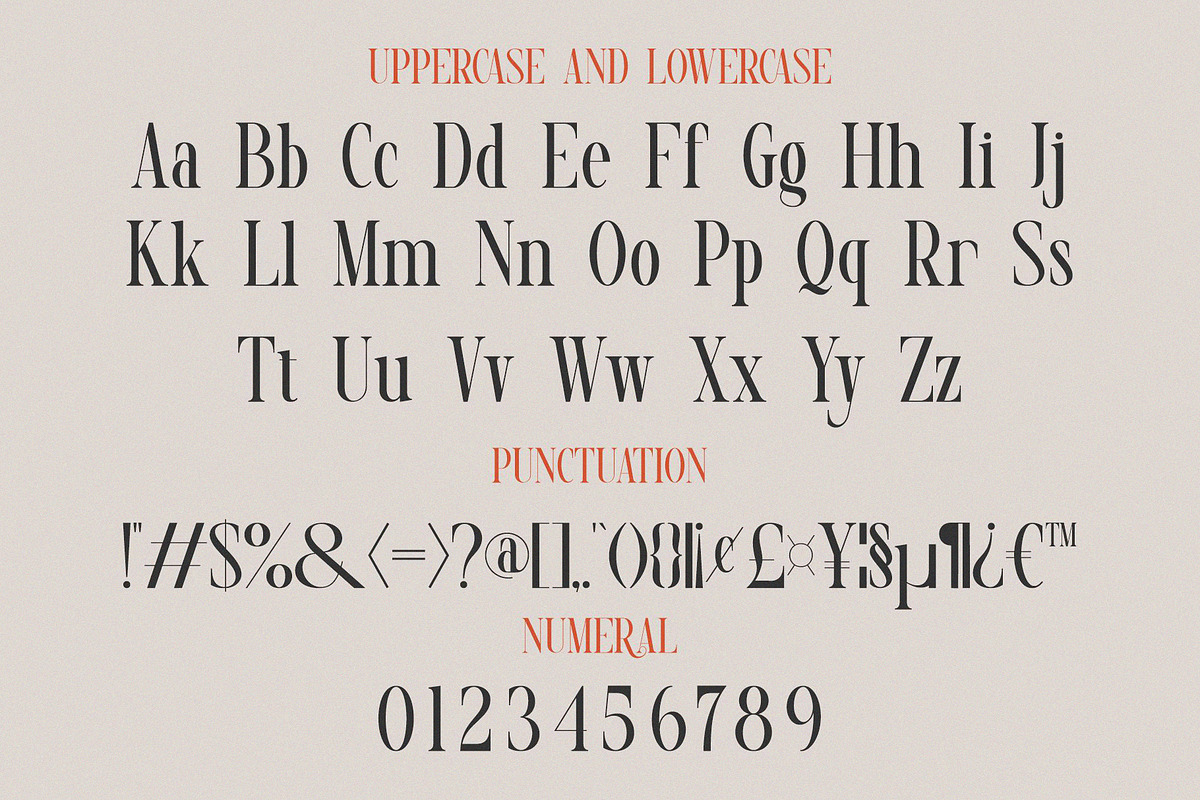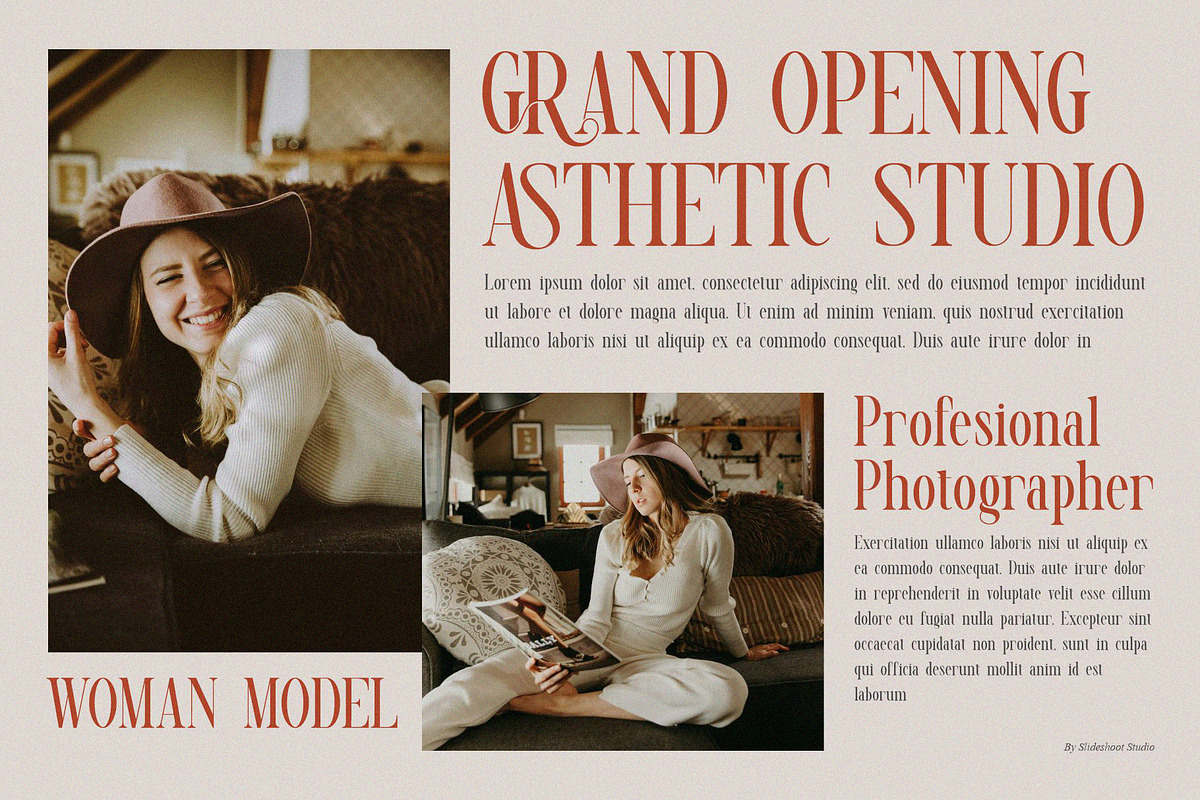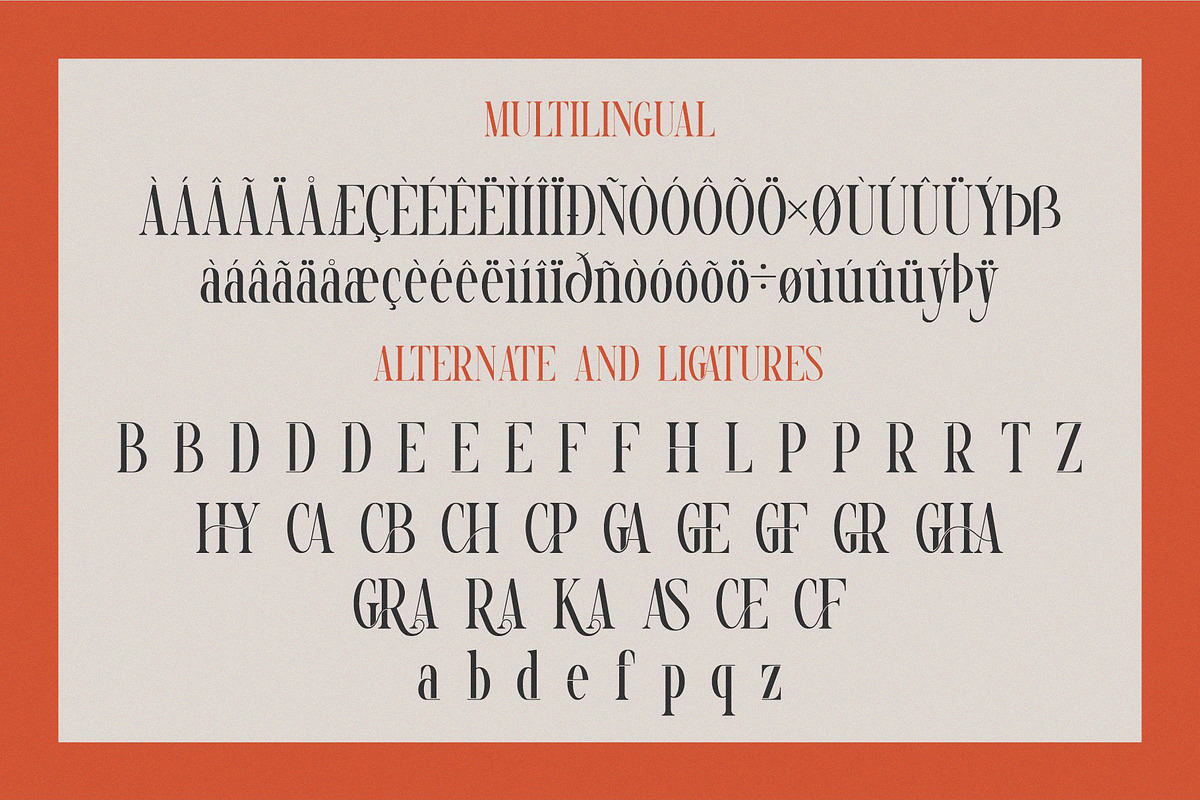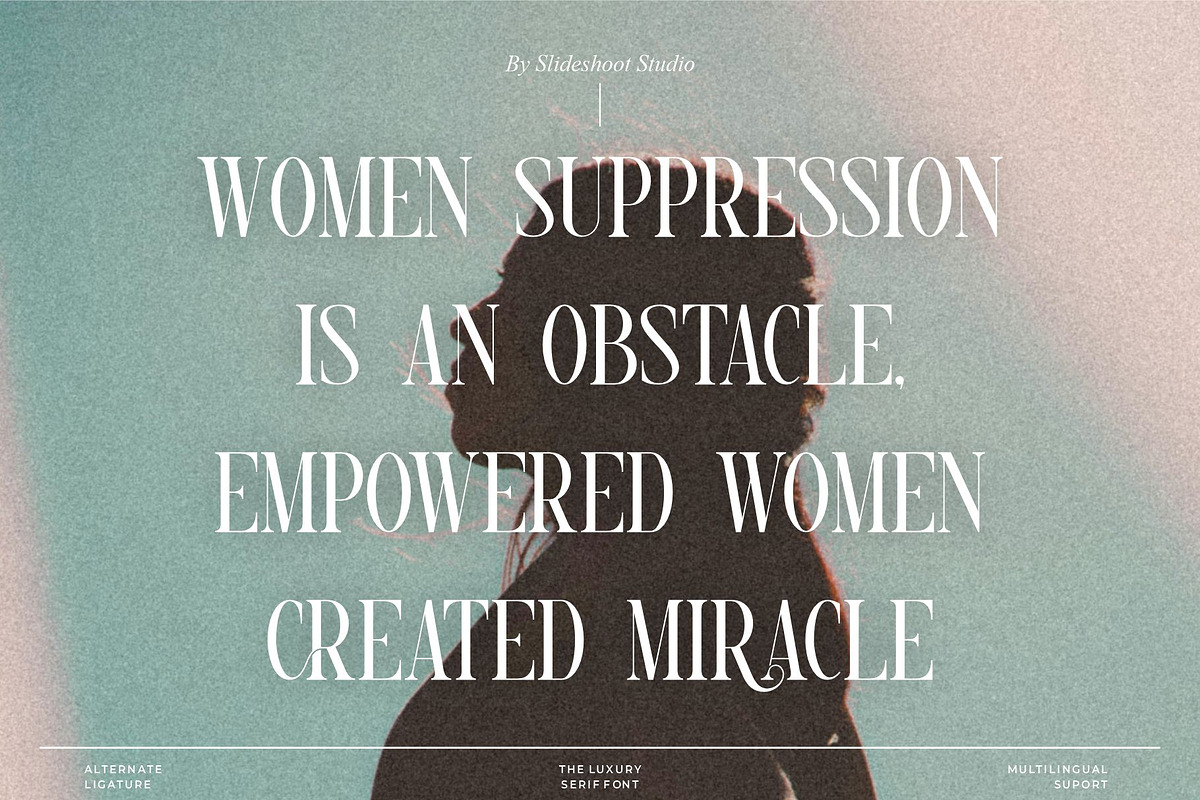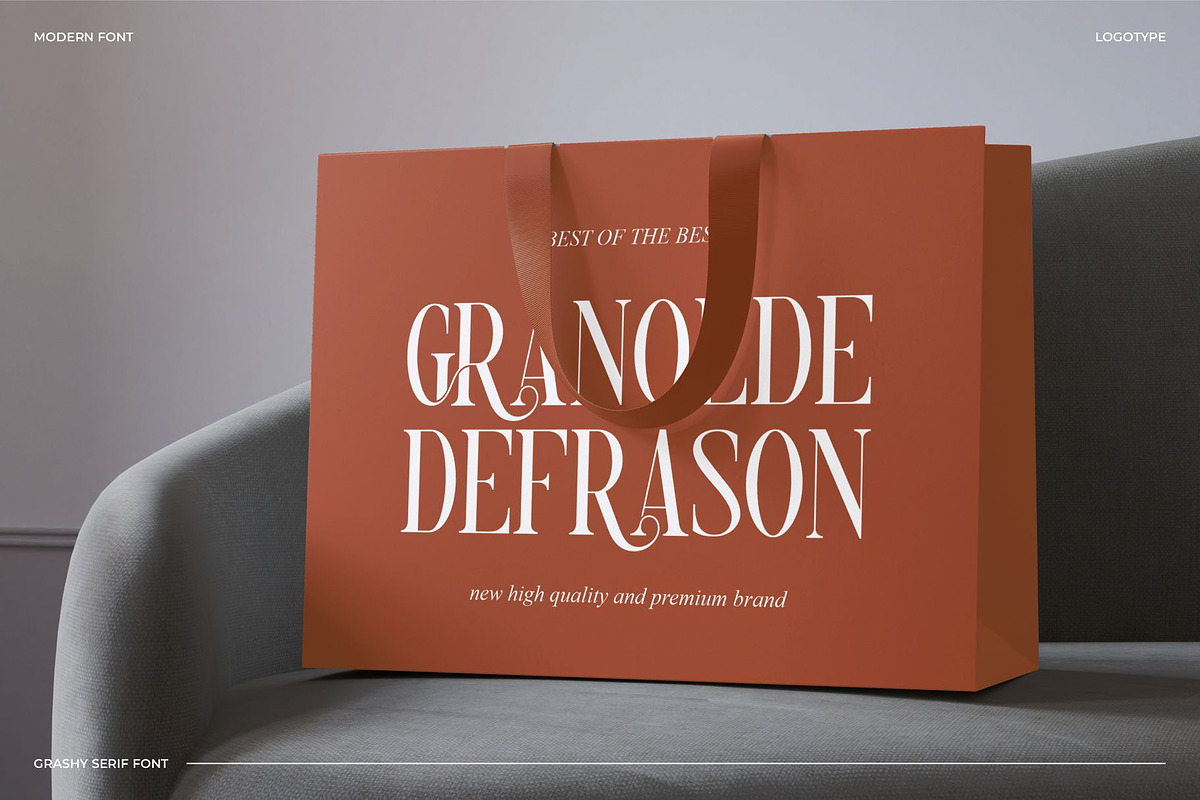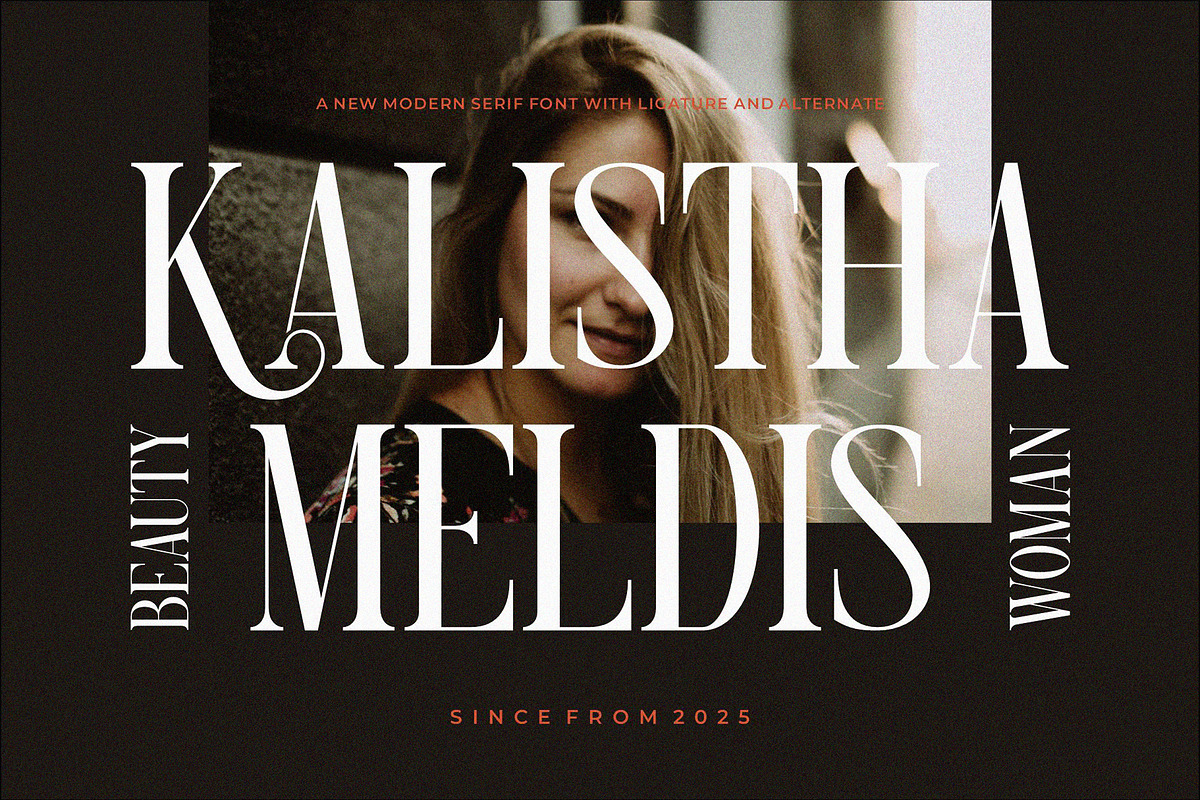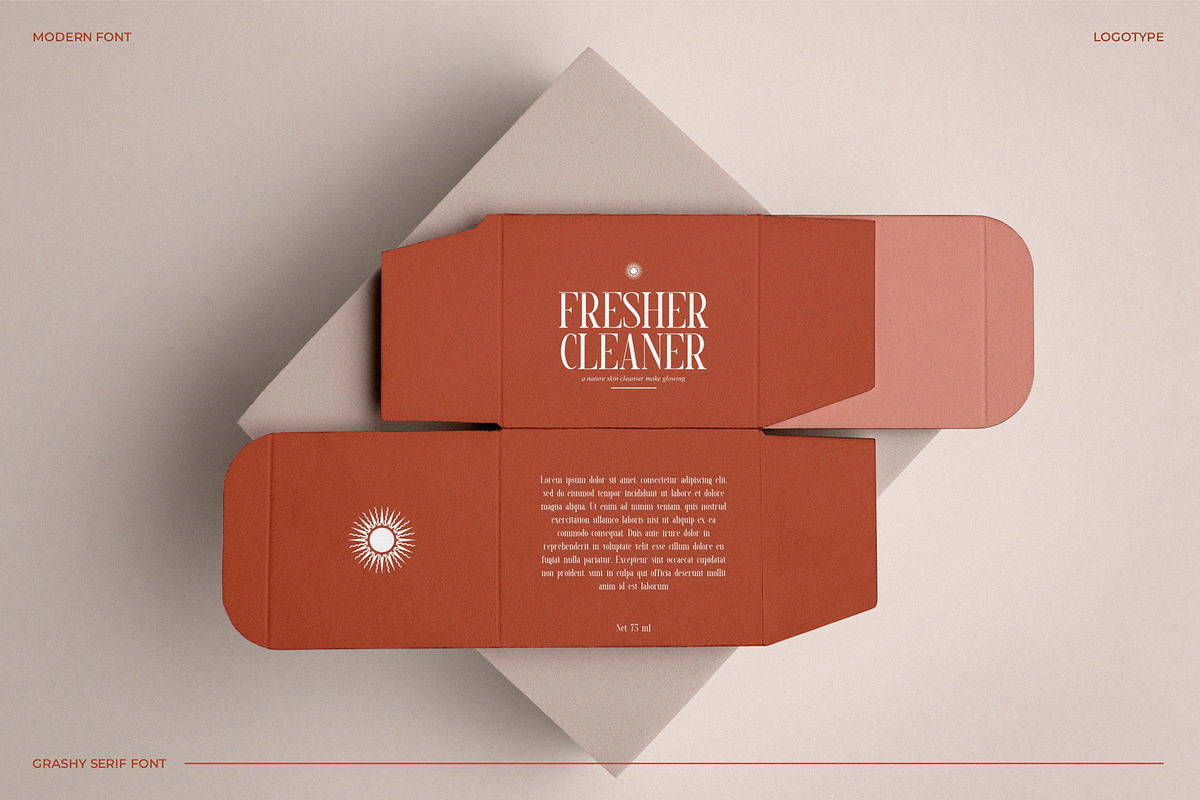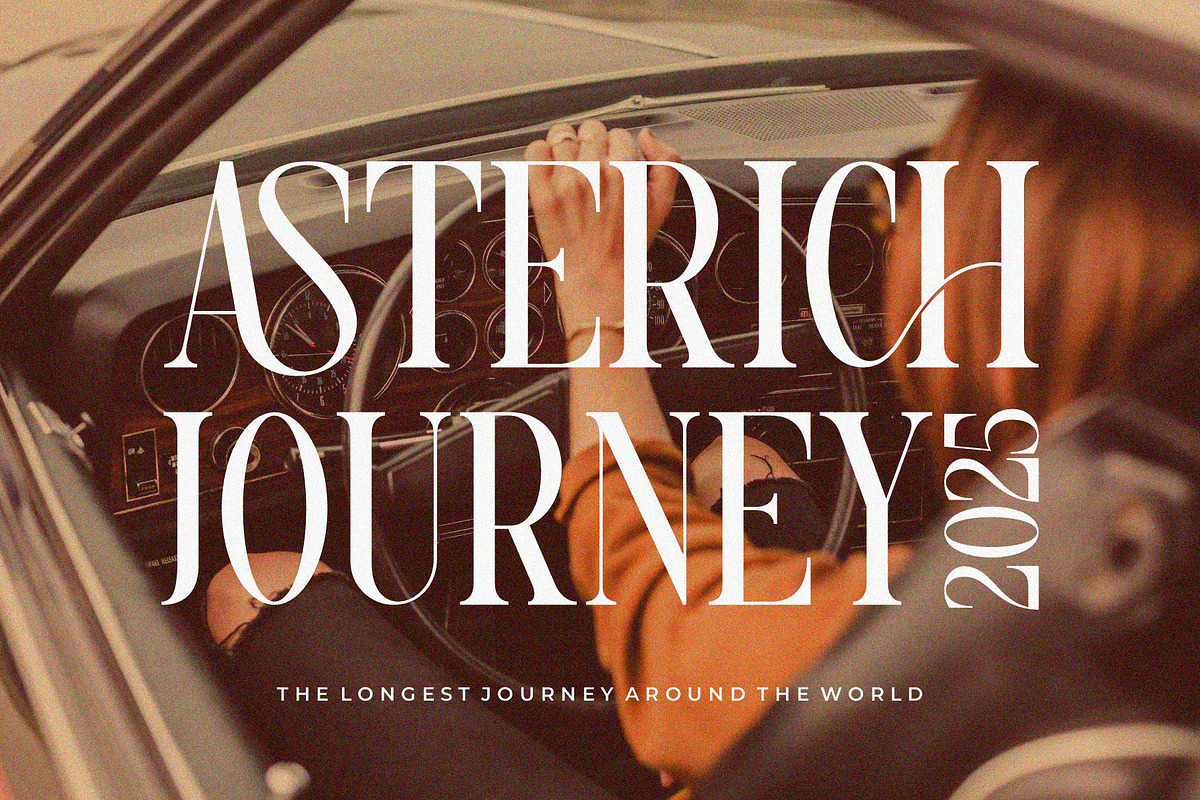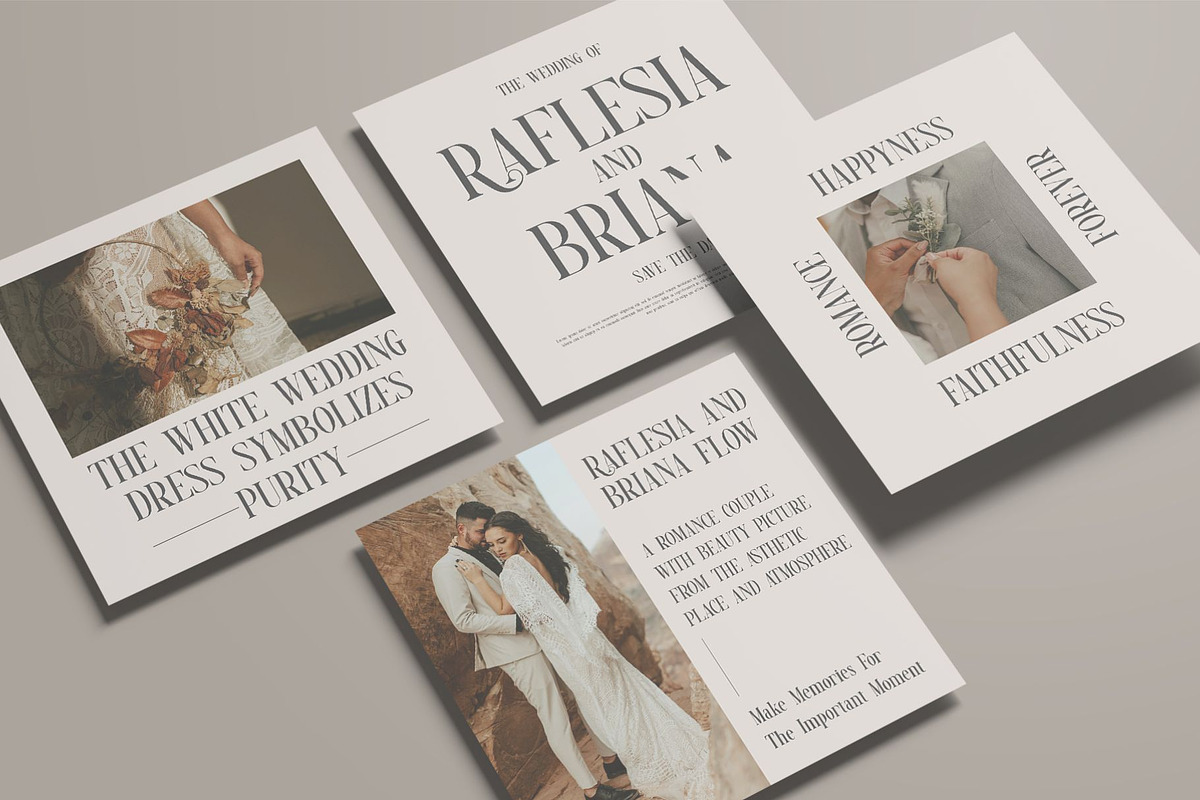
Grashy || Elegant Serif Font
Grashy Serif is a modern and classy font type for all branding and logo designs. This modern and classy Serif font has a beautiful character. This font is suitable for invitation card designs, cool logos, movie titles, movie names, business cards, book titles, brand names, and various other designs. Grashy Serif is a smooth serif font that exudes sophistication and the moment. Its stylish alterations and ligatures make this font a perfect partner for any project.